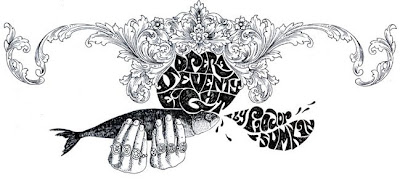
Wandered upon this doing a Google Search- Check out the artist's website, Fiodor Sumkin, http://opera78.com. His work is featured in Amsterdam and Paris... I especially like the TV sets spelling out "Hope." Pretty cool stuff on the website! Go check it out! Posted by Emily